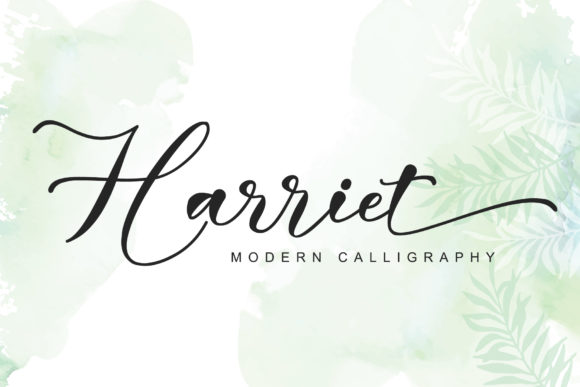
Step into the realm of elegance and sophistication with Harriet Font, a breathtaking handwritten font that oozes charm and grace. Its delicate strokes and flowing curves dance across the page, evoking a sense of timeless beauty and artistry. Harriet's wide spectrum of applications, ranging from heartfelt greeting cards to bold headlines, makes it the perfect choice for designers and creatives seeking to elevate their projects with a touch of romance and allure.
Unleash your creativity and let Harriet's enchanting personality shine through in your designs. Its PUA encoding grants you effortless access to a treasure trove of glyphs and swashes, opening up endless possibilities for customization and personalization. Whether you're crafting a professional resume that demands attention or adding a touch of elegance to your social media posts, Harriet has the power to transform your words into captivating works of art.
Immerse yourself in the world of typography and experience the magic of Harriet Font. Its versatility knows no bounds, making it an ideal companion for both formal and casual settings. Let Harriet's delicate embrace enhance your designs, leaving a lasting impression on your audience.